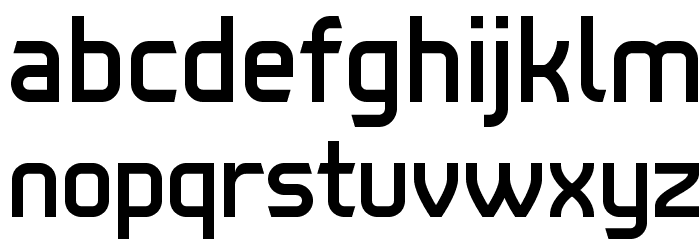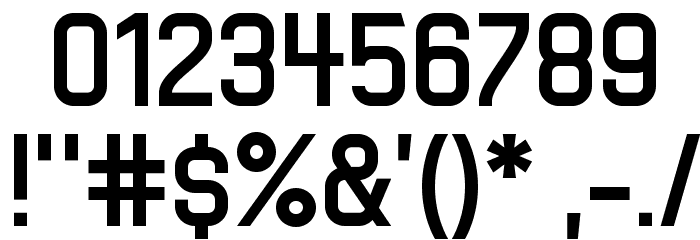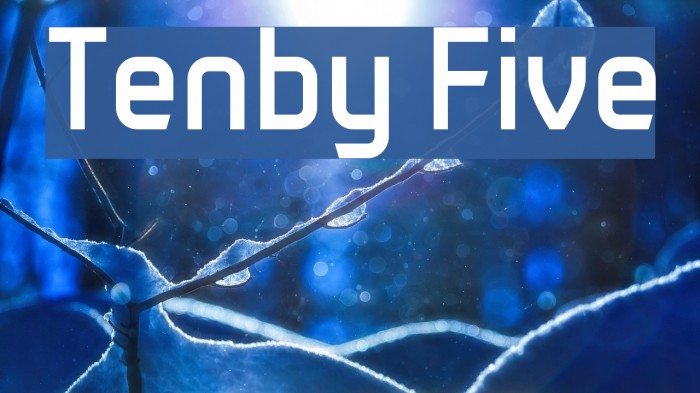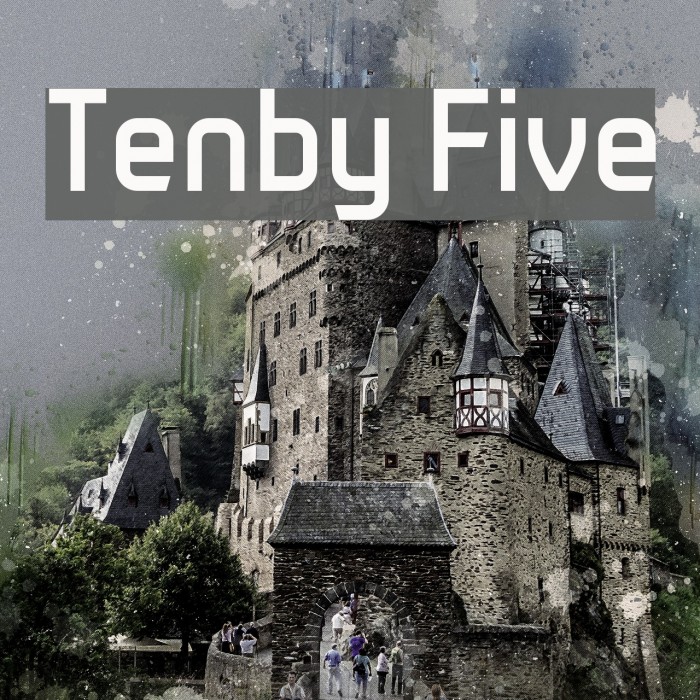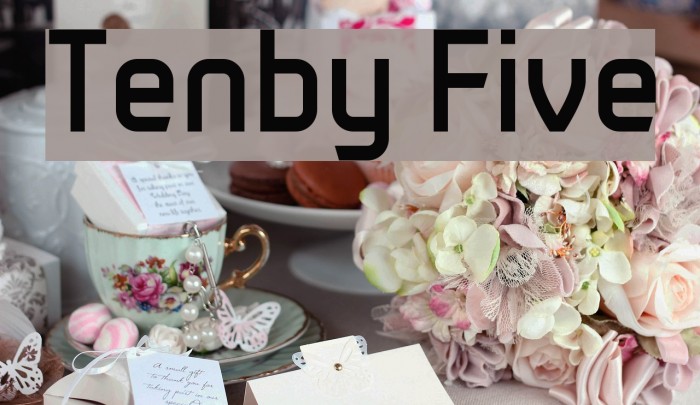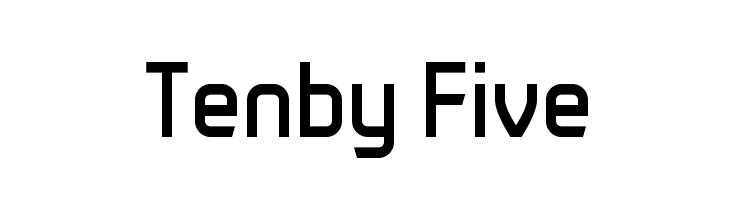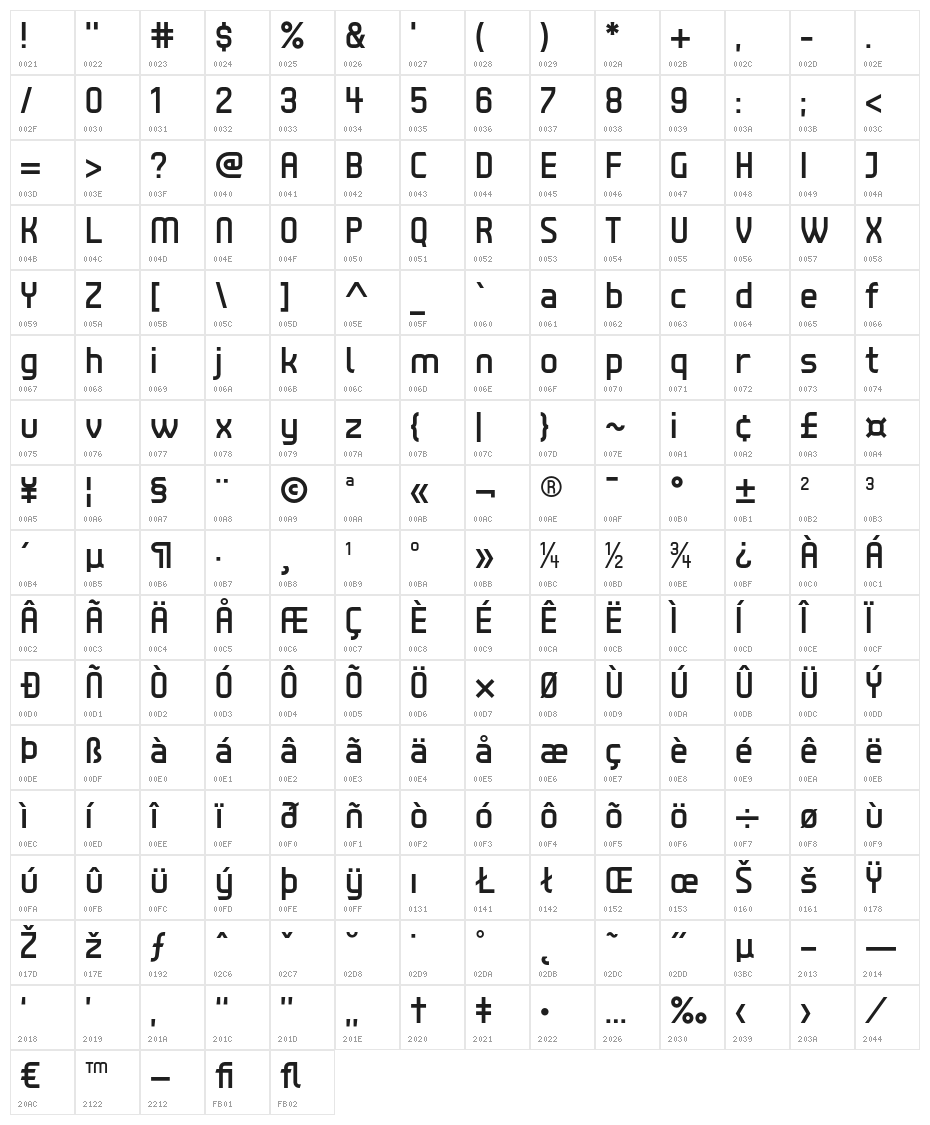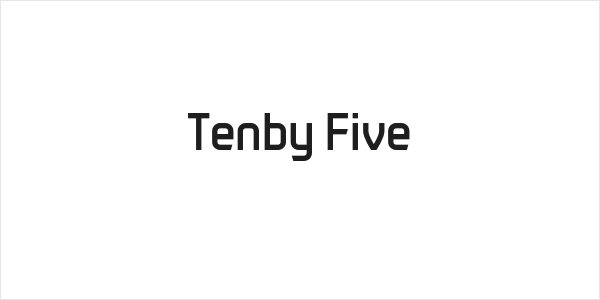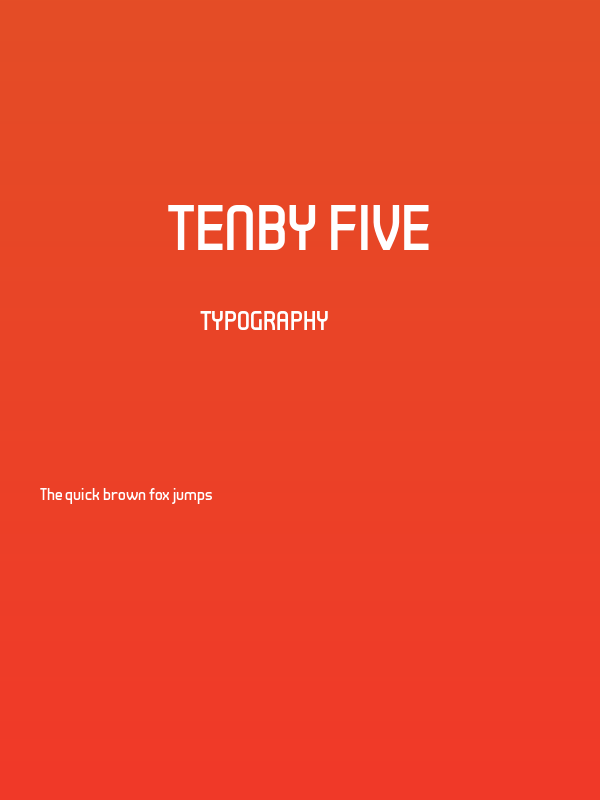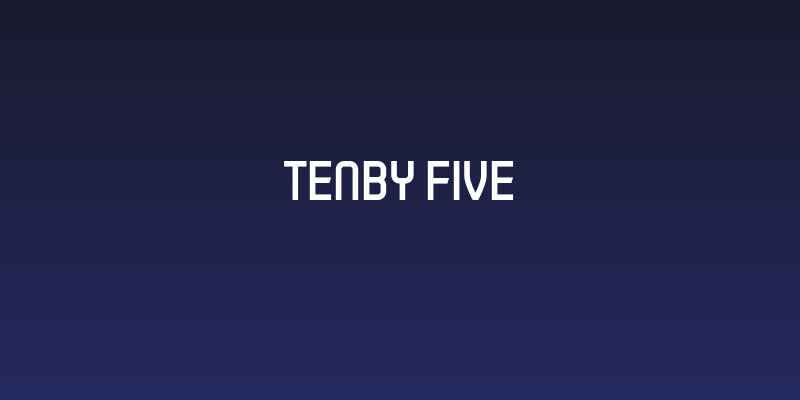
Tenby Five Font
This font features a clean and modern sans-serif style with rounded edges, giving it a friendly and approachable appearance. The characters are uniform in width, contributing to a balanced and harmonious look. The uppercase letters are bold and assertive, while the lowercase letters maintain a consistent height, enhancing readability. The numerals are clear and distinct, making them suitable for various applications. Special characters are well-defined, adding versatility to the font. Overall, this font combines simplicity with a touch of elegance, making it suitable for both digital and print media.
A modern sans-serif font with rounded edges and uniform width.
- Proposed Projects: Ideal for branding, web design, advertising, and packaging projects.
- Use Case: Headlines, Logos, Web design